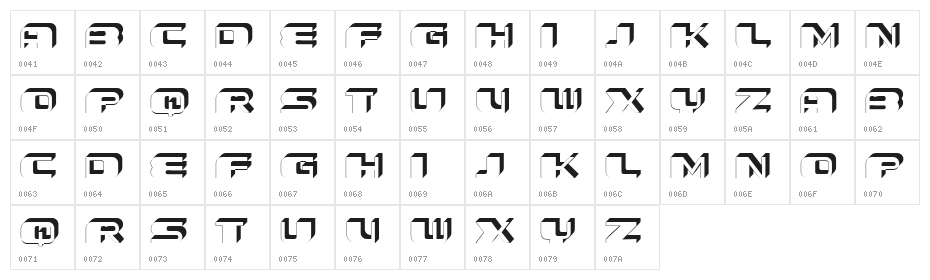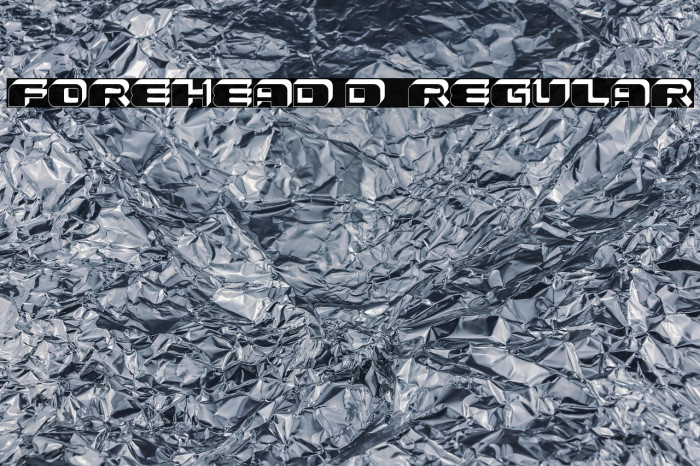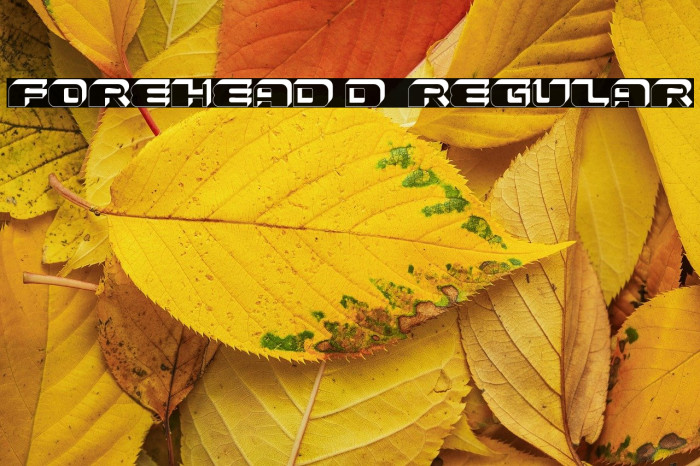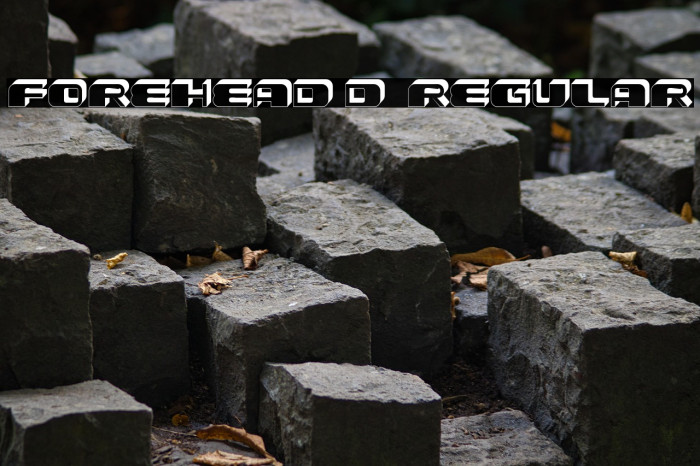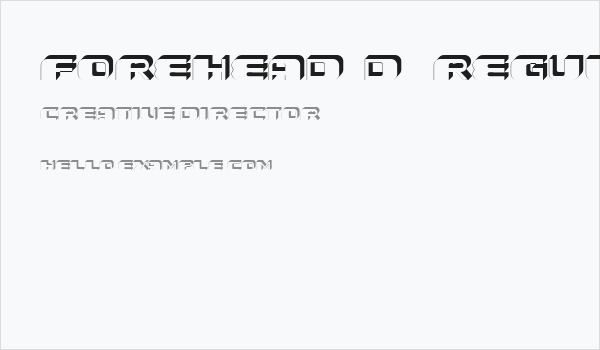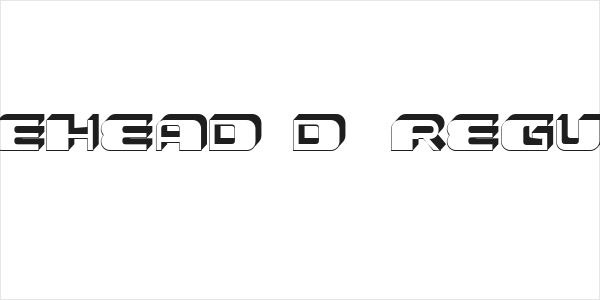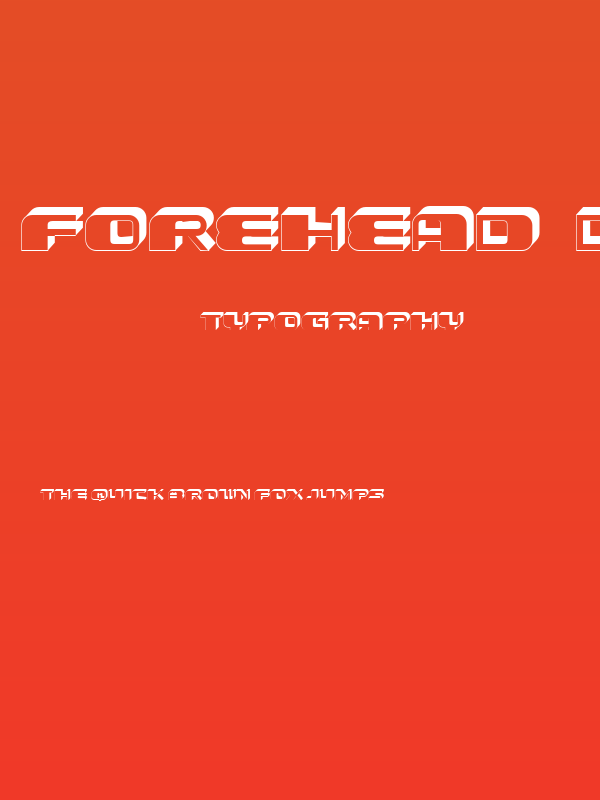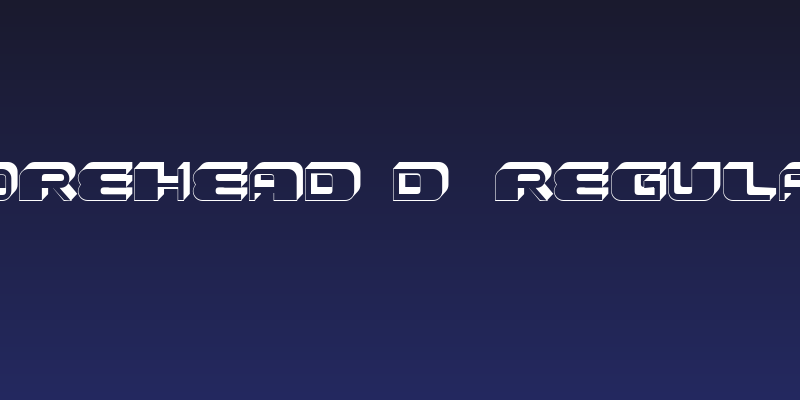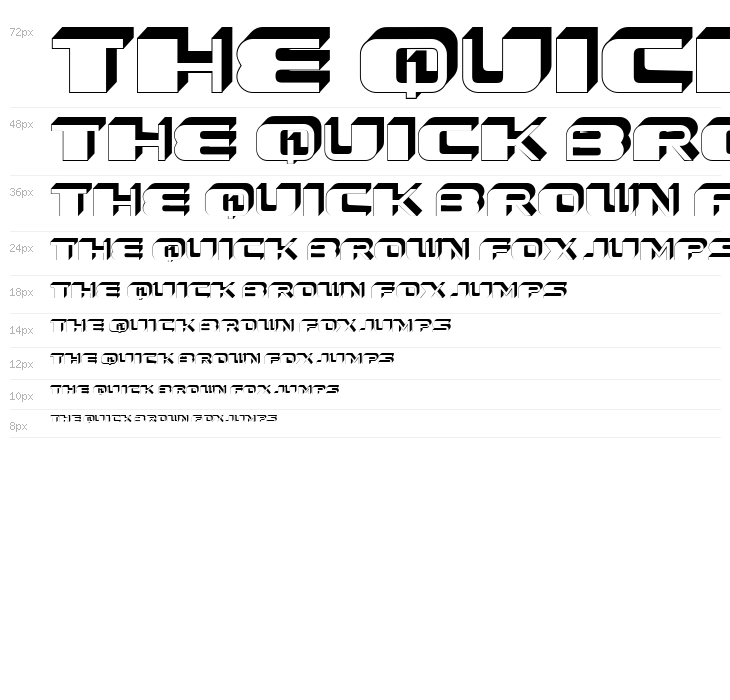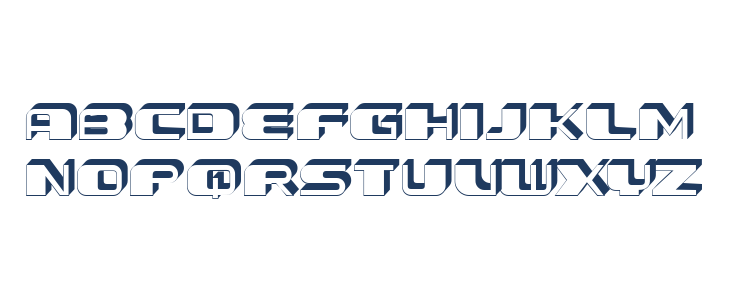
Forehead 3D 1 Regular Font
Forehead 3D 1 Regular Description
This font features a bold, three-dimensional design that gives each character a striking and impactful appearance. The letters are constructed with a solid, block-like structure, enhanced by a shadow effect that creates a sense of depth and dimension. The geometric shapes are clean and precise, with sharp angles and a modern aesthetic. This style is particularly eye-catching and is designed to stand out in any context. The uppercase letters are uniform in height, and the overall design is consistent across the alphabet, numbers, and special characters. The font's unique 3D effect makes it ideal for projects that require a bold and dynamic visual impact.
| Proposed Projects | Ideal for headlines, posters, logos, and any design requiring a strong visual impact. |